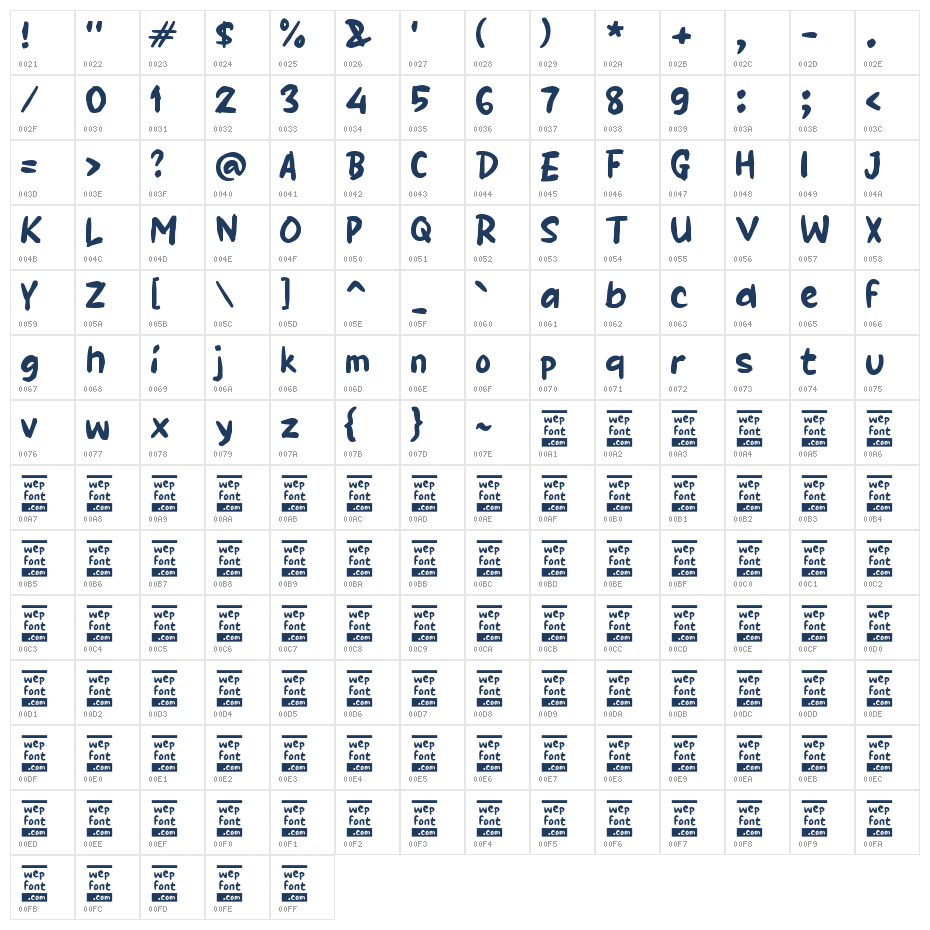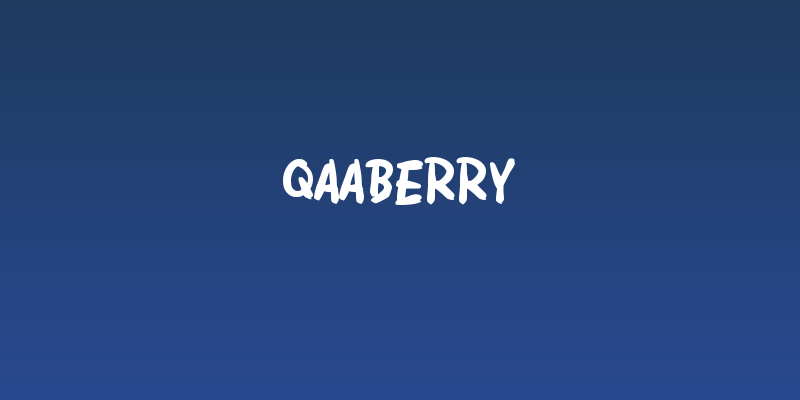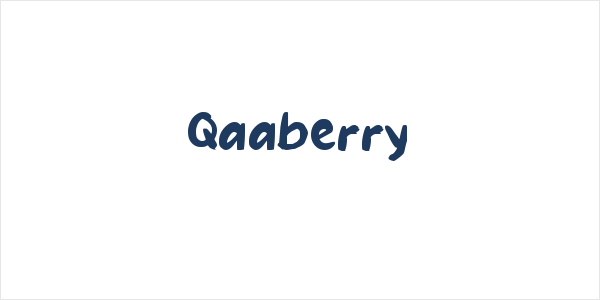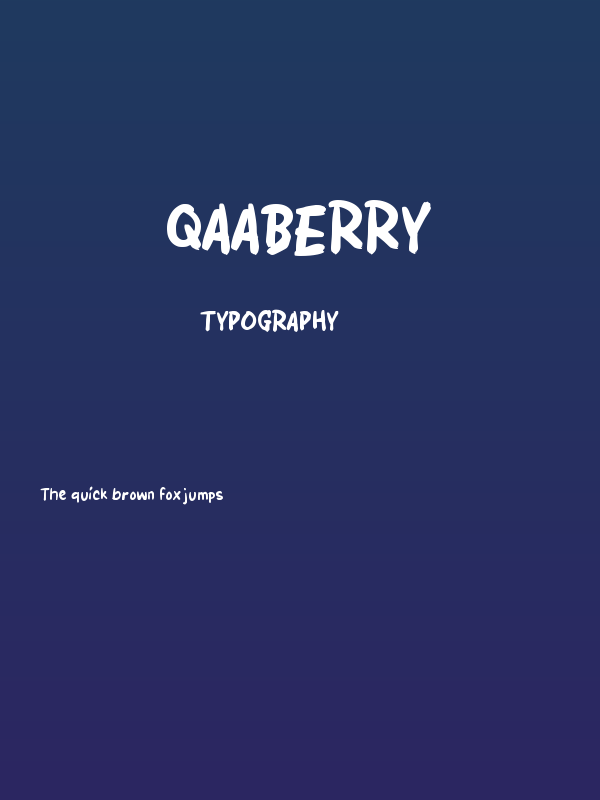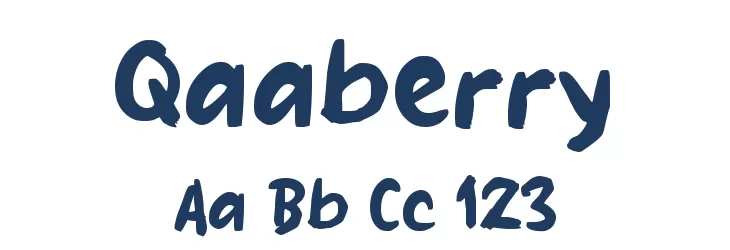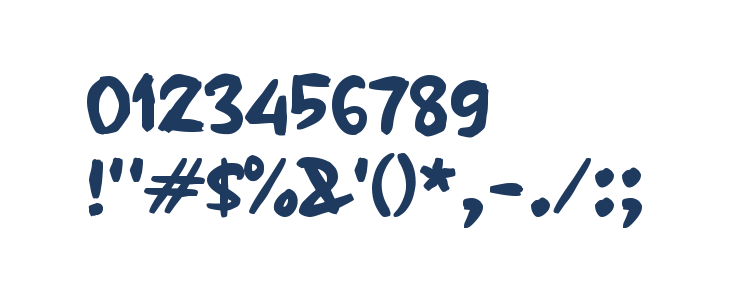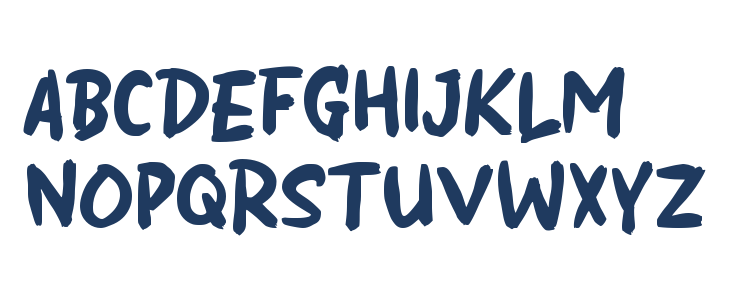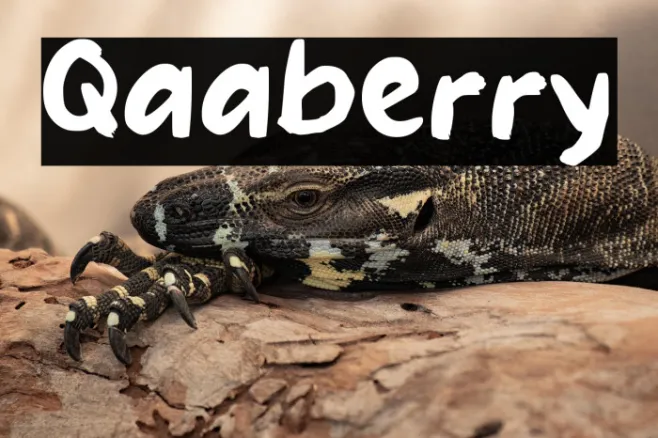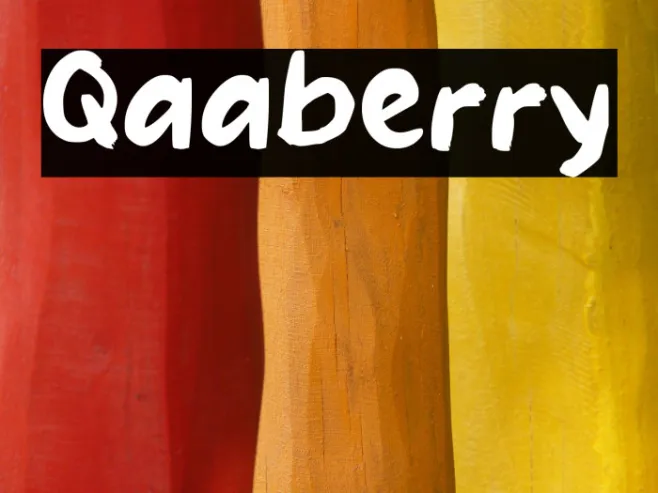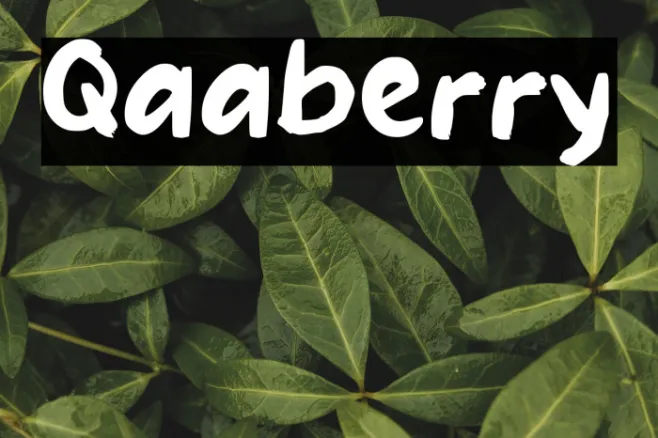
Qaaberry Font
Qaaberry Description
A playful, bold, handwritten style font with rounded edges and a casual appearance.
| Use Case | Headlines, Posters, Children's materials, Social media |